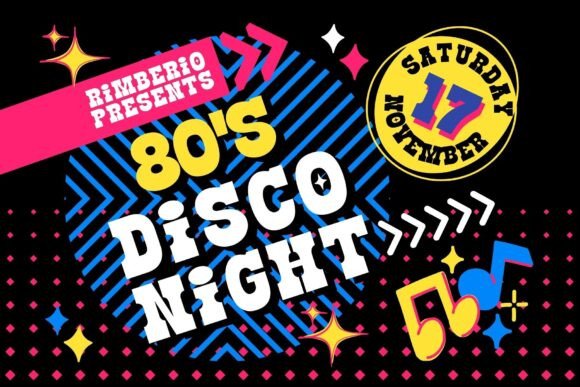
Introducing Fox Mighty Font: The Ultimate Retro Display Font for Bold Statements
In the world of typography, fonts play a crucial role in conveying the tone and personality of a design project. When it comes to creating bold and eye-catching designs, a font that exudes confidence and charm is essential. This is where Fox Mighty Font comes in – a bold and vibrant retro display font that brings vintage charm and playful personality to your design projects.
Inspired by Classic Western Posters and Circus Typography
Fox Mighty Font is inspired by the classic Western posters and circus typography of the past. The font’s chunky letterforms, strong outlines, and fun inner details are reminiscent of the bold and colorful typography used in vintage posters and advertisements. With Fox Mighty, you can bring a touch of nostalgia and retro charm to your designs, making them stand out in a crowded digital landscape.
Key Features of Fox Mighty Font
So, what makes Fox Mighty Font so special? Here are some of its key features:
- Chunky Letterforms: Fox Mighty Font features chunky letterforms that are perfect for creating bold and eye-catching headlines.
- Strong Outlines: The font’s strong outlines add depth and dimension to your designs, making them more visually appealing.
- Fun Inner Details: The font’s fun inner details, such as the subtle texture and pattern, add a touch of personality and whimsy to your designs.
- Retro Charm: Fox Mighty Font’s vintage-inspired design makes it perfect for creating designs that require a touch of nostalgia and retro charm.
Perfect for Bold Statements and Retro Charm
Fox Mighty Font is the perfect choice for designers who want to create bold and eye-catching designs that make a statement. Whether you’re working on a branding project, a poster design, or a digital advertisement, Fox Mighty Font is sure to grab attention and leave a lasting impression.
Example Use Cases:
- Branding: Use Fox Mighty Font to create bold and eye-catching logos that make a statement.
- Poster Design: Fox Mighty Font is perfect for creating bold and colorful posters that grab attention.
- Digital Advertising: Use Fox Mighty Font to create eye-catching digital ads that stand out in a crowded online landscape.
Why Choose Fox Mighty Font?
With so many fonts available, why choose Fox Mighty Font? Here are just a few reasons:
- Unique Design: Fox Mighty Font’s unique design makes it stand out from other fonts on the market.
- High-Quality: Fox Mighty Font is a high-quality font that is designed to deliver exceptional results.
Tips for Using Fox Mighty Font
Here are some tips for using Fox Mighty Font:
- Use it for Headlines: Fox Mighty Font is perfect for creating bold and eye-catching headlines.
- Experiment with Colors: Fox Mighty Font looks great in a variety of colors, so don’t be afraid to experiment and find the perfect color for your design.
- Pair it with Other Fonts: Fox Mighty Font can be paired with other fonts to create a unique and visually appealing design.
In conclusion, Fox Mighty Font is a bold and vibrant retro display font that brings vintage charm and playful personality to your design projects. With its chunky letterforms, strong outlines, and fun inner details, Fox Mighty Font is perfect for creating bold and eye-catching designs that make a statement. Whether you’re working on a branding project, a poster design, or a digital advertisement, Fox Mighty Font is sure to grab attention and leave a lasting impression.